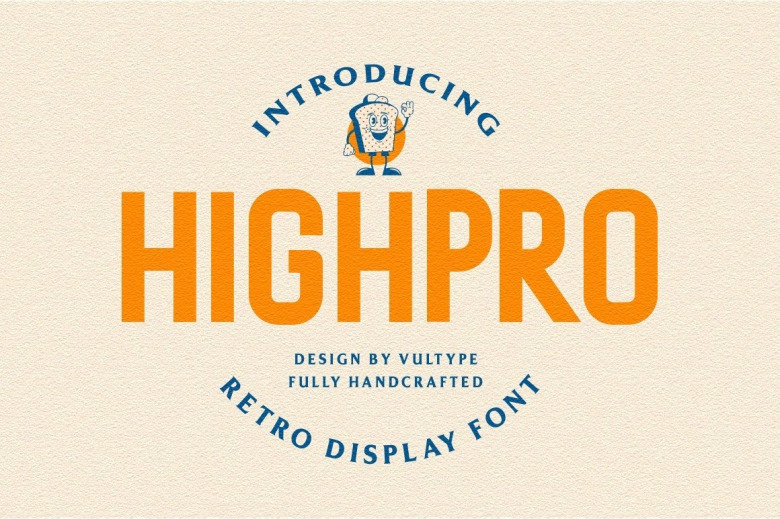
Highpro Font
Highpro – Condensed Sans Serif Font suitable for your branding projects, commercial invitations and everything your needs requir like logo branding and editorial design, stationery design, sportz, blog images, banner photo graphes to used within modern advertising designs. card invitation,, art quote or watercolor for home decorand etc, book/cover title Special print events.
Highpro Sans Serif Font